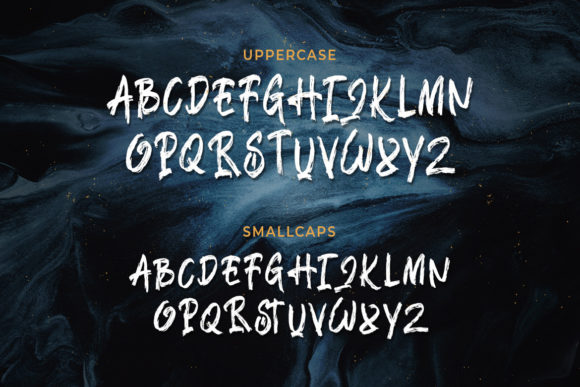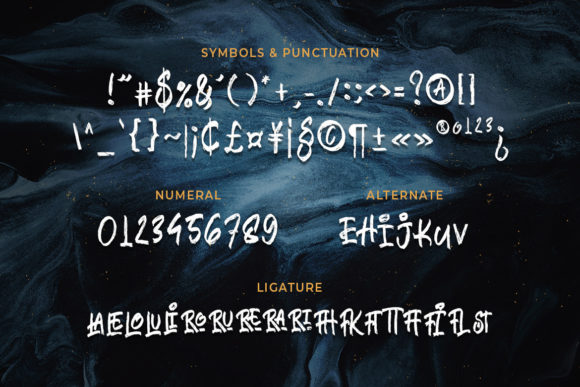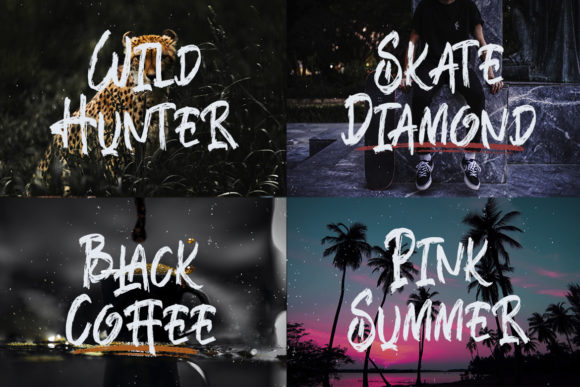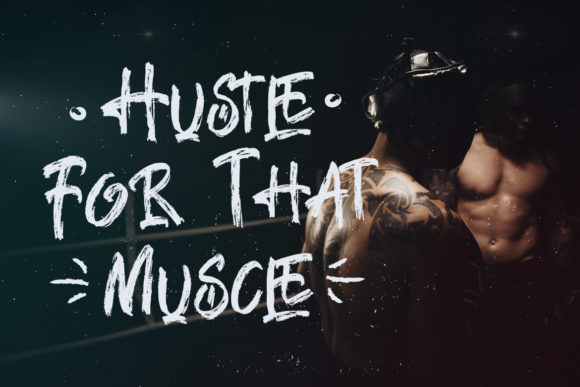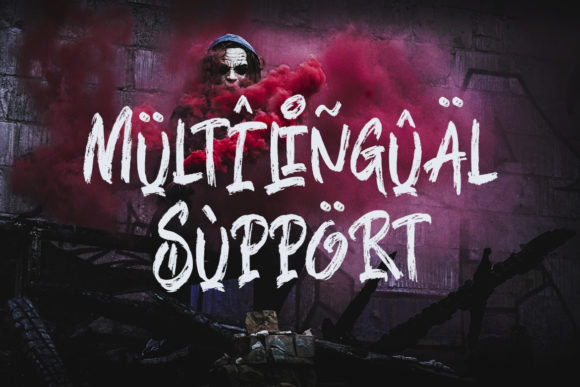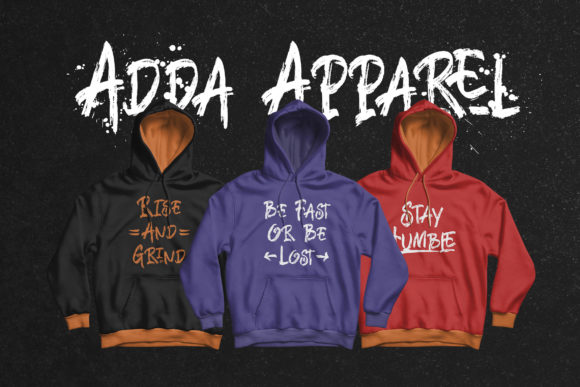
Bangke Font: Adding a Cool Touch to Your Designs
In the world of typography, fonts play a crucial role in conveying the tone and personality of a brand or design. For designers and crafters looking to add a unique and casual touch to their projects, Bangke Font is an excellent choice. This textured brushed display font features rough and casual letters that can instantly elevate logos, branding, print projects, and more.
What is Bangke Font?
Bangke Font is a display font designed to give your designs a cool, laid-back vibe. Its textured and brushed appearance gives it a distinctive look that’s perfect for projects that require a bit of character. The font’s rough and casual letters are carefully crafted to provide a sense of authenticity and personality, making it ideal for designers who want to add a human touch to their work.
Key Features of Bangke Font
- Textured and Brushed Appearance: Bangke Font features a unique textured and brushed appearance that sets it apart from other fonts.
- Rough and Casual Letters: The font’s letters are designed to have a rough and casual feel, giving your designs a relaxed and approachable look.
- Display Font: Bangke Font is a display font, making it perfect for headlines, titles, and other prominent text elements.
- Versatile: This font can be used for a wide range of design projects, including logos, branding, print projects, and more.
Use Cases for Bangke Font
Bangke Font is a versatile font that can be used in various design projects. Here are some use cases where this font shines:
- Logos and Branding: Bangke Font is perfect for creating unique and memorable logos that require a cool touch.
- Print Projects: This font can add a touch of personality to brochures, posters, flyers, and other print materials.
- Social Media Graphics: Bangke Font can be used to create engaging social media graphics that require a casual and relaxed look.
- Packaging Design: This font can be used for packaging design projects that require a distinctive and eye-catching look.
Benefits of Using Bangke Font
Using Bangke Font in your designs offers several benefits:
- Unique Look: This font provides a unique and distinctive look that sets your designs apart from others.
- Easy to Read: Despite its textured and brushed appearance, Bangke Font is easy to read, making it perfect for use in a variety of design projects.
- Time-Saving: With Bangke Font, you can save time and effort in creating custom lettering or textures for your designs.
Tips for Using Bangke Font
To get the most out of Bangke Font, here are some tips to keep in mind:
- Use it for Headlines and Titles: Bangke Font is perfect for use in headlines and titles, where its textured and brushed appearance can make a big impact.
- Pair it with Other Fonts: Experiment with pairing Bangke Font with other fonts to create a unique and visually appealing look.
- Adjust the Size and Color: Adjust the size and color of Bangke Font to suit your design needs and ensure it complements your overall design.
Bangke Font is a versatile and unique font that can add a cool touch to your designs. Its textured and brushed appearance, combined with its rough and casual letters, make it perfect for a wide range of design projects. Whether you’re a designer or crafter, Bangke Font is an excellent choice for anyone looking to add a professional and distinctive touch to their work.